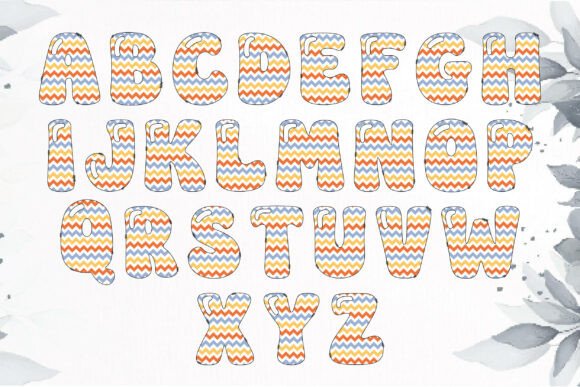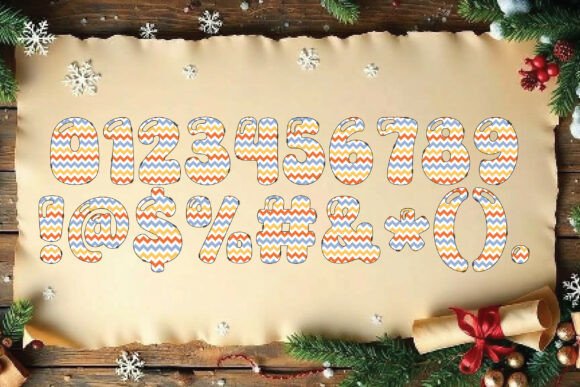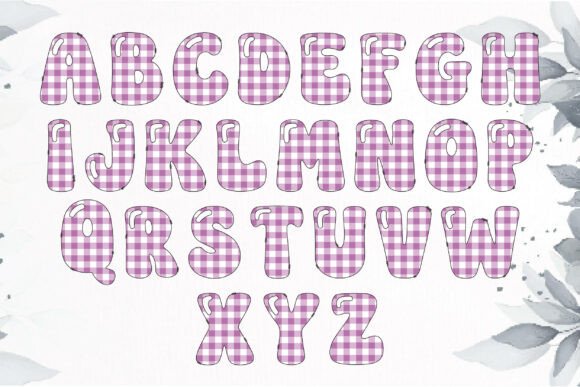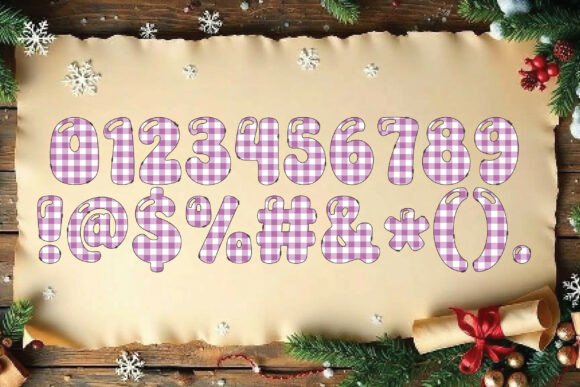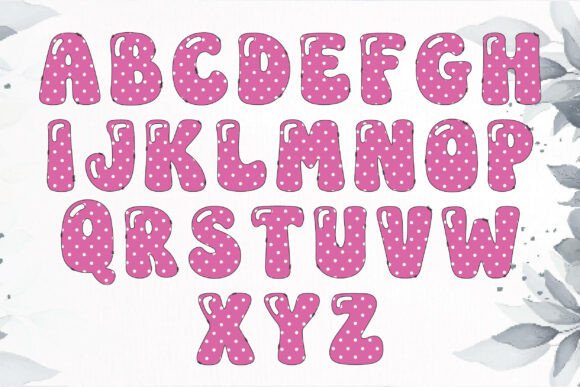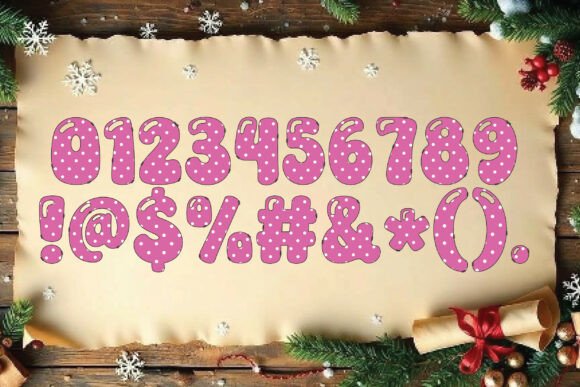
Spring into Easter Design with the Baby Easter Font Bundle
As a designer, have you ever found yourself searching for the perfect font to match the whimsical feeling of Easter? Perhaps you’ve spent hours browsing through font libraries, only to settle for something that’s just “okay.” I’ve been there too, but what if I told you there’s a font bundle that’s specifically designed to bring the joy and cuteness of Easter to your designs?
Enter the Baby Easter Font Bundle, a delightful collection of four playful styles that will make your Easter designs shine. With fonts like Baby Easter Dot, Baby Easter Box, Baby Easter Flower, and Baby Easter Zigzag, you’ll have all the tools you need to create adorable and festive designs for baby and kids themed projects, Easter crafts, and seasonal print-on-demand products.
Whether you’re a seasoned designer or just starting out, the Baby Easter Font Bundle is a valuable addition to your toolkit. Its versatility and charm will make it a go-to choice for any Easter design project, and its cute spring-inspired details will add a touch of personality to your work.
Baby Easter Font Key Features
- Font Family: Baby Easter is a unique, hand-drawn font designed specifically for Easter and baby-themed projects.
- Character Set: Includes a wide range of characters, including uppercase and lowercase letters, numbers, and special characters.
- Unique Characteristics: The Baby Easter font features intricate, hand-drawn designs and subtle Easter-themed elements, such as eggs, bunnies, and flowers, adding a touch of whimsy to any project.
Baby Easter Font Review
I recently had the chance to work with the Baby Easter Font, and I have to say it’s a cute addition to any Easter-themed project. Here are my thoughts on what works well and what doesn’t:
What Works Well: ✨
- Quirky and playful design: The font is perfect for adding a whimsical touch to Easter-themed projects, like invitations, cards, and graphics.
- Cute Easter-themed characters: The font includes adorable Easter-themed characters, like bunnies and eggs, which can be used to create engaging and fun designs.
- Limited character set: The font’s character set is limited, which may not be suitable for longer text-based projects.
- No font weights: The font doesn’t have multiple weights, which may limit its use in more complex designs.
Overall, the Baby Easter Font is a fun and playful addition to any Easter-themed project. While it has some limitations, its cute design and easy use make it a great choice for designers looking to add a whimsical touch to their work.
Tip: Use the Baby Easter Font in combination with pastel colors and Easter-themed graphics for a festive look.
Tip: Use the Baby Easter Font in combination with hand-drawn illustrations for a whimsical look.
Tip: Use the Baby Easter Font in combination with Easter-themed templates and graphics for a cohesive look.
The Baby Easter Font is perfect for:
- Easter-themed invitations and party decorations.
- Spring and Easter-themed greeting cards and gift tags.
- Children’s books and educational materials.